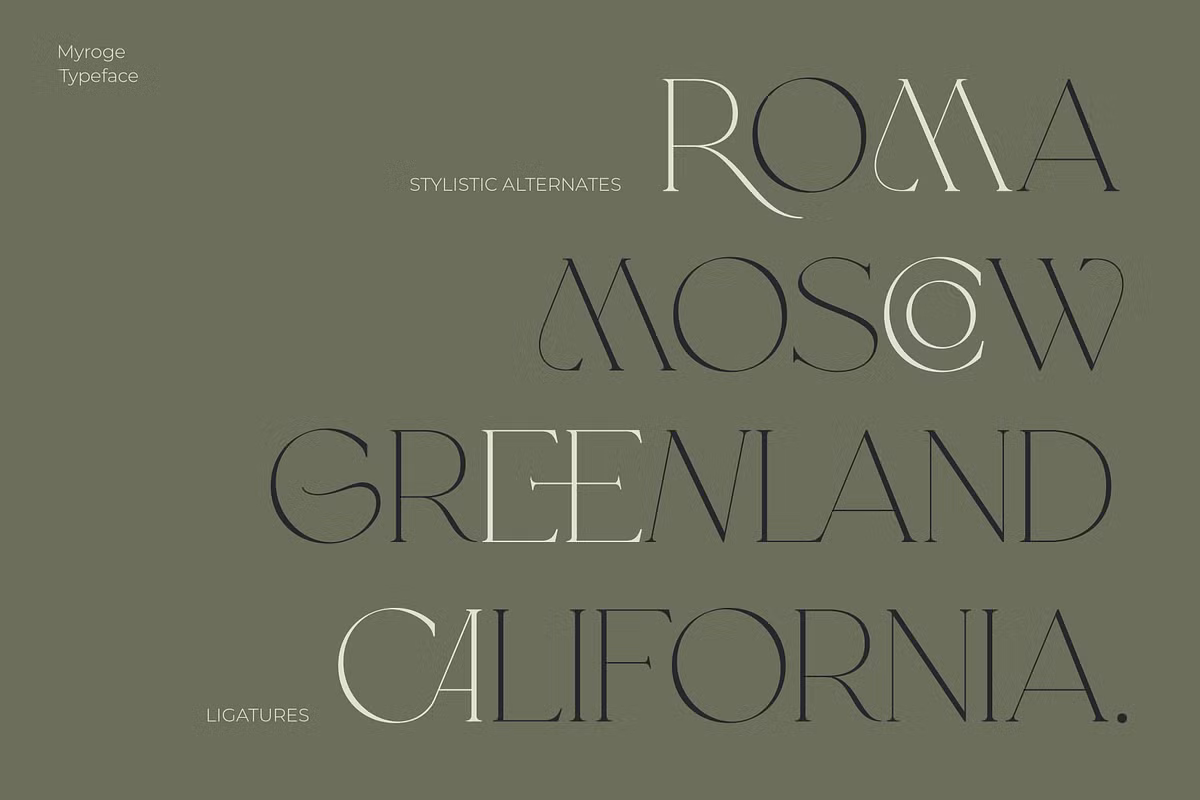
Introducing MYROGE: A Premium Serif Typeface
When it comes to typography, the font you choose can make all the difference in making your brand stand out. A good font can make your brand more memorable and give it a unique touch. Take MYROGE, for example – it’s a really elegant and delicate serif font that’s perfect for adding a touch of sophistication to your brand.
One of the things that makes MYROGE so special is its beautiful ligatures and alternate glyphs, which not only look great but also give you a lot of flexibility when it comes to designing your brand’s visual identity. Whether you’re looking to create a classy logo or design some beautiful wedding invitations, MYROGE is a great choice.
It’s a font that can help take your brand to the next level and make it really special. With MYROGE, you can create a visual identity that’s not only stunning but also unique and memorable. So if you’re looking for a font that can help elevate your brand and make it stand out, MYROGE is definitely worth considering.
Design Style of MYROGE
MYROGE has a classic look that’s easy to recognize. It’s a serif font with thin lines and smooth curves, which makes it look fancy and charming. The way the letters connect to each other, called ligatures, makes the text flow nicely, which is great for design projects. This font is perfect for high-end brands, especially those in fashion, beauty, and lifestyle, because it looks sophisticated and elegant.
Moreover, having different glyph options gives designers a lot of ways to make their text special and fit their needs. This flexibility means MYROGE can work well in many different design situations without losing its classic look. It can adapt to what the designer wants, making it a great choice for many projects.
Character Sets and Multilingual Support
MYROGE has a big collection of letters and symbols, including capital and small letters, plus some extra ones and special connections between letters. This means you can make your text look really interesting and varied. Also, MYROGE can be used in many different languages, so you can talk to people all around the world in their own language.
This makes it a great tool for communicating with people from different countries and cultures. Whether you’re writing a message, creating a design, or making a website, MYROGE helps you express yourself in a way that’s clear and easy to understand, no matter where your audience is from.
Use Cases for MYROGE
MYROGE is a great font that works well in many different situations. It has a simple and elegant design, along with many useful features. Here are some examples of when MYROGE is a good choice:
- Logotype Design: MYROGE’s unique ligatures and elegant curves make it an ideal choice for creating logos that stand out and convey a sense of luxury.
- MYROGE can help create a unique look for any brand, whether it’s a beauty company or a fancy store, by using its elegant letters and style to make the brand stand out.
- Wedding Invitations: The delicate nature of MYROGE makes it perfect for elegant wedding stationery and invitations, adding a touch of class to any event.
- Make your social media posts stand out with MYROGE. It helps you create amazing quotes and promotional stuff that grabs people’s attention.
- Greeting Cards: Craft heartfelt messages with an artistic touch by incorporating MYROGE into your card designs.
Pairing Suggestions for MYROGE
When it comes to typography, pairing fonts effectively can enhance the overall design. MYROGE pairs beautifully with a variety of other typefaces, allowing you to create a cohesive look across your branding materials. Here are some pairing suggestions:
- When choosing fonts, it’s a good idea to pair MYROGE with a simple sans-serif font like Montserrat or Open Sans. This combination gives your design a modern feel.
- When you want to add a personal touch to something, think about pairing MYROGE with a font that looks like it’s handwritten, especially for invitations.
- Bold Display Fonts: To emphasize headlines or key messages, combine MYROGE with a bold display font like Bebas Neue. This creates a striking visual hierarchy.
Need to design a logo that pops? Done. Creating stationery that impresses? Easy. Crafting social media content that grabs attention? You get the idea. And let’s not forget those beautiful ligatures and alternate glyphs – they’re the icing on the cake, giving your work a sophisticated, polished look that’s sure to turn heads. So why miss out on the chance to take your design toolkit to the next level with this stunning font?